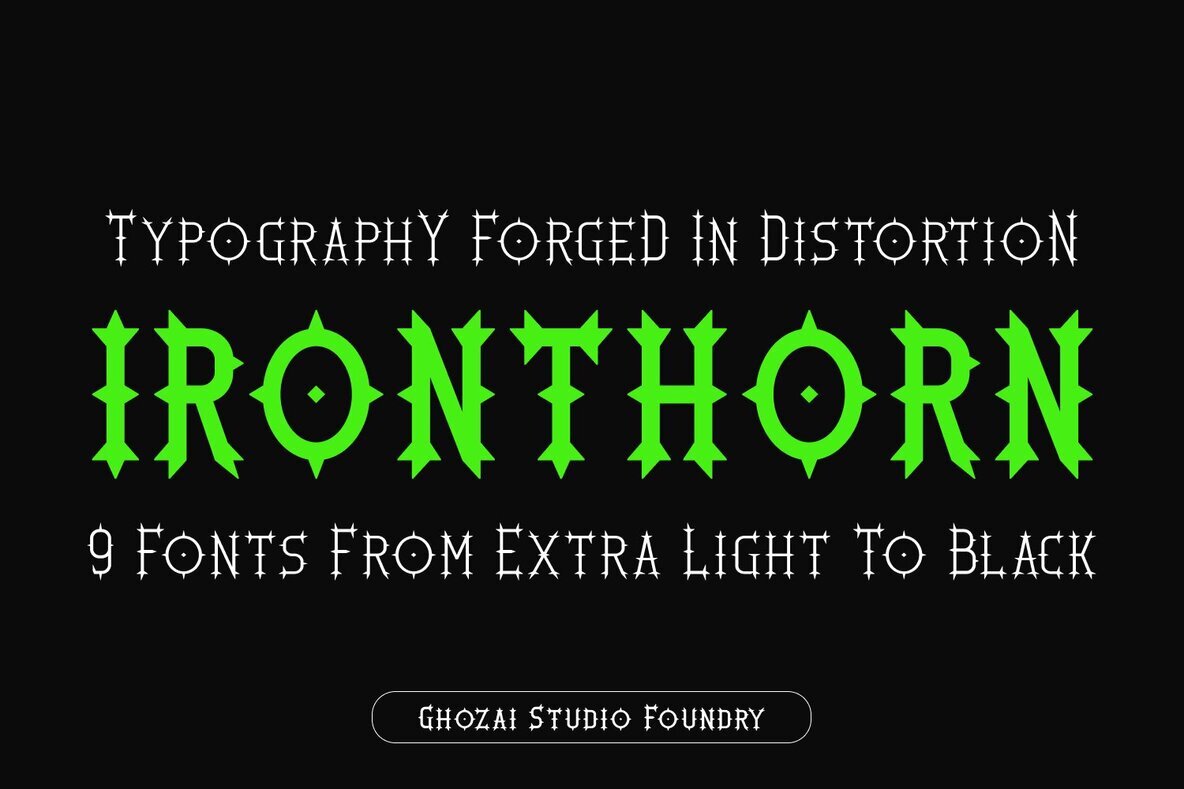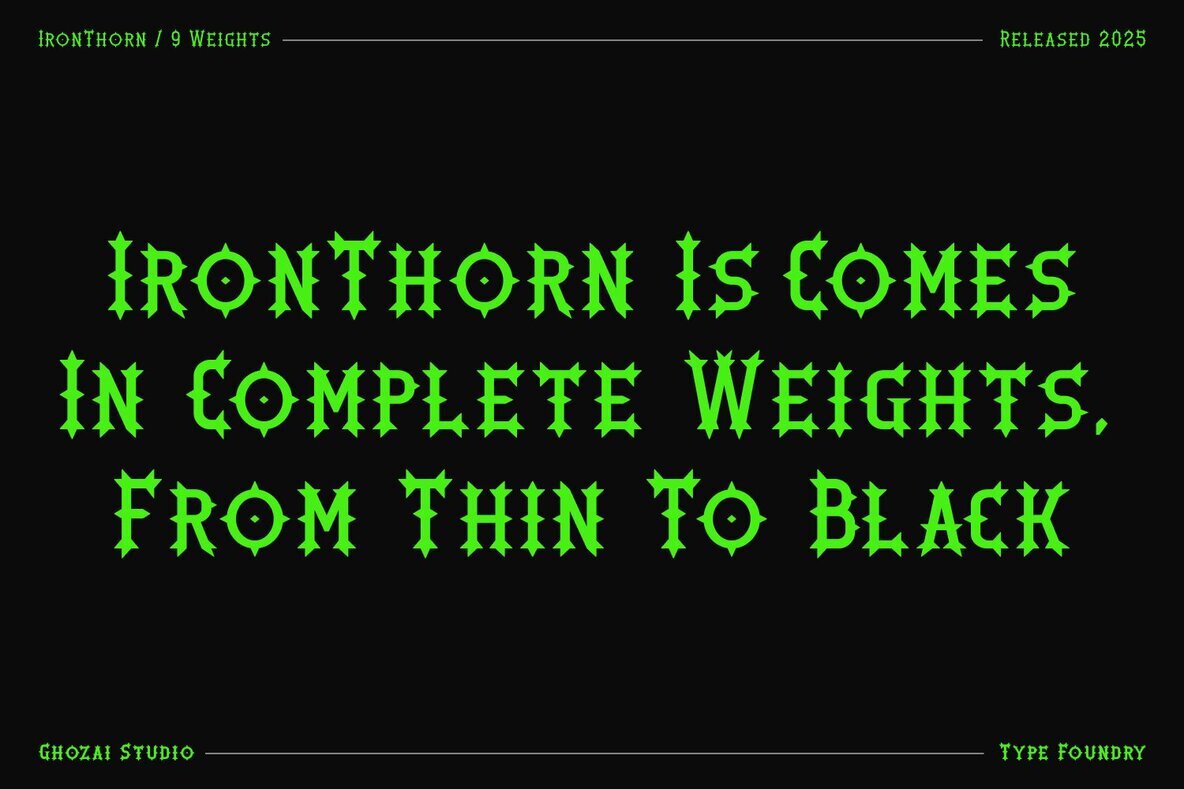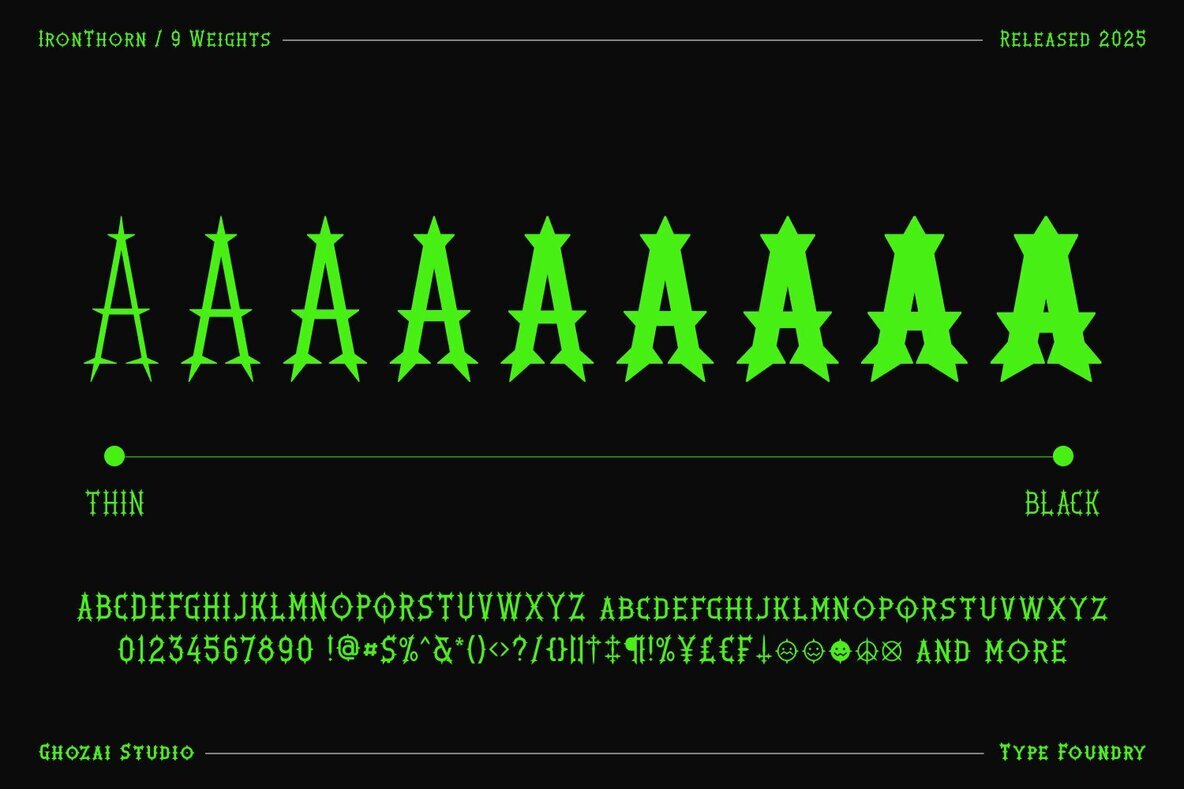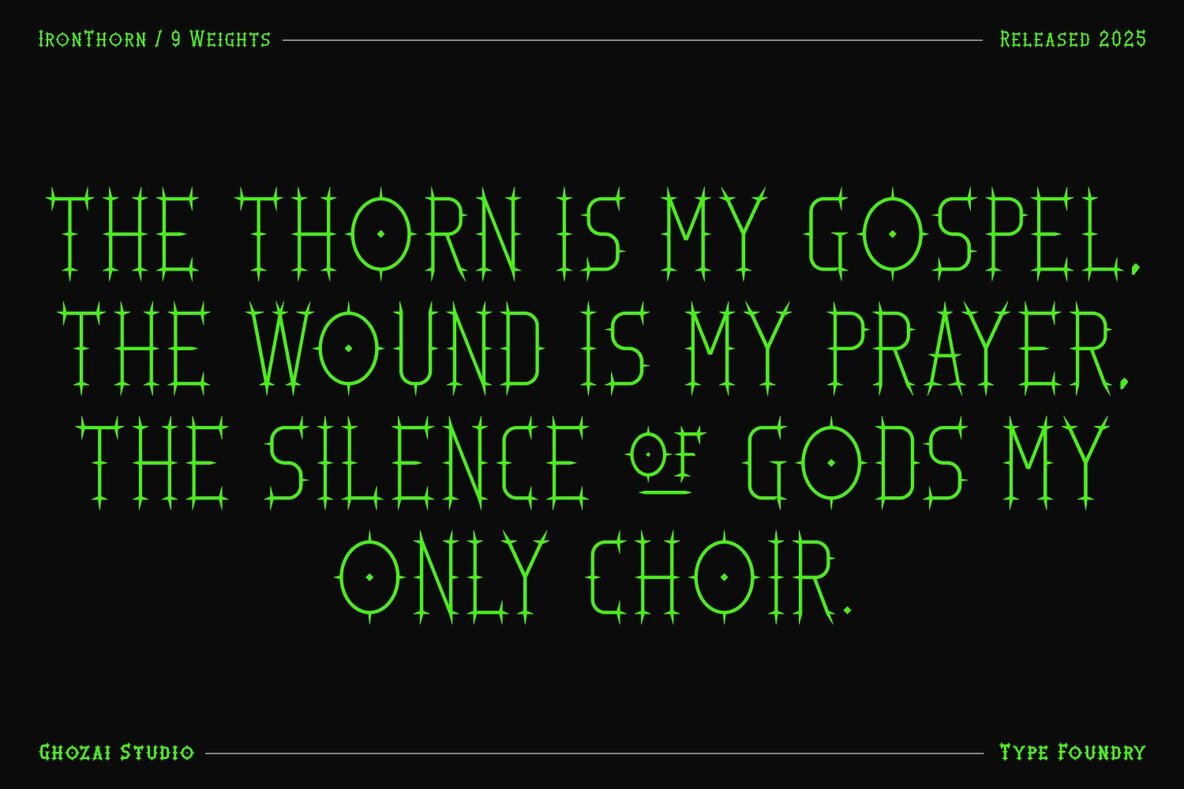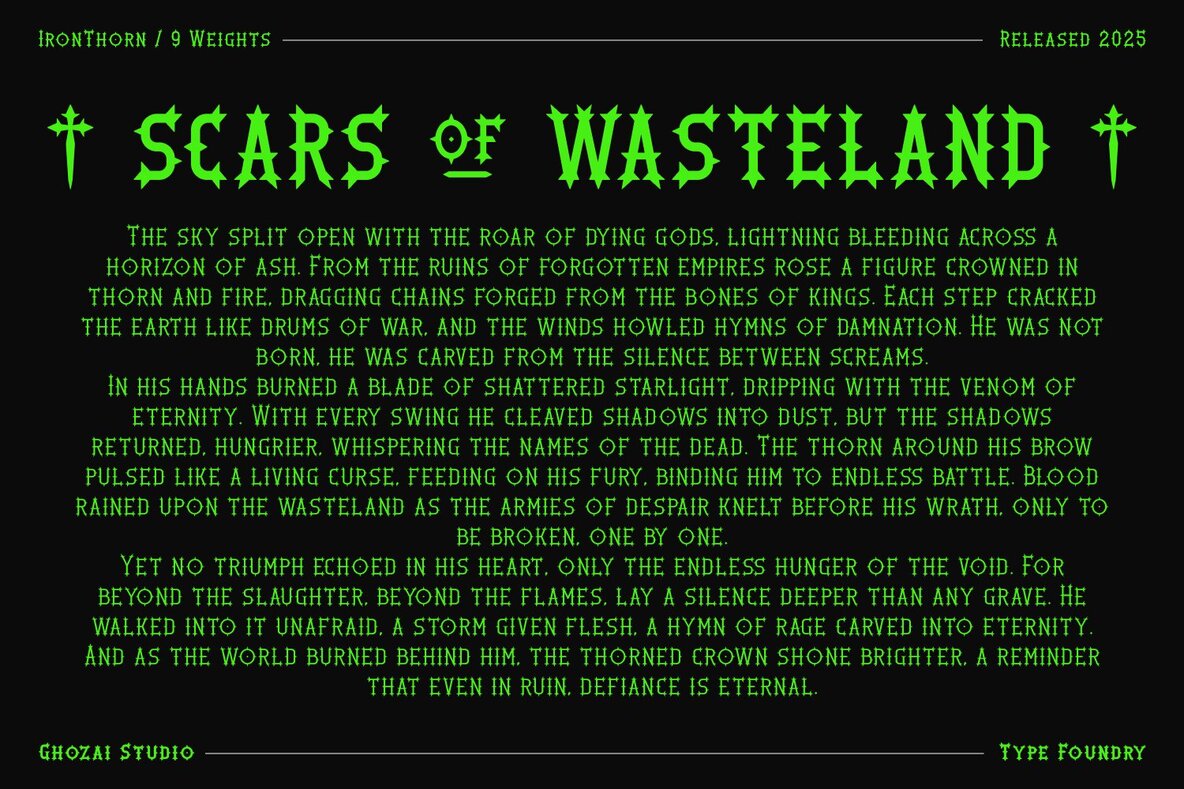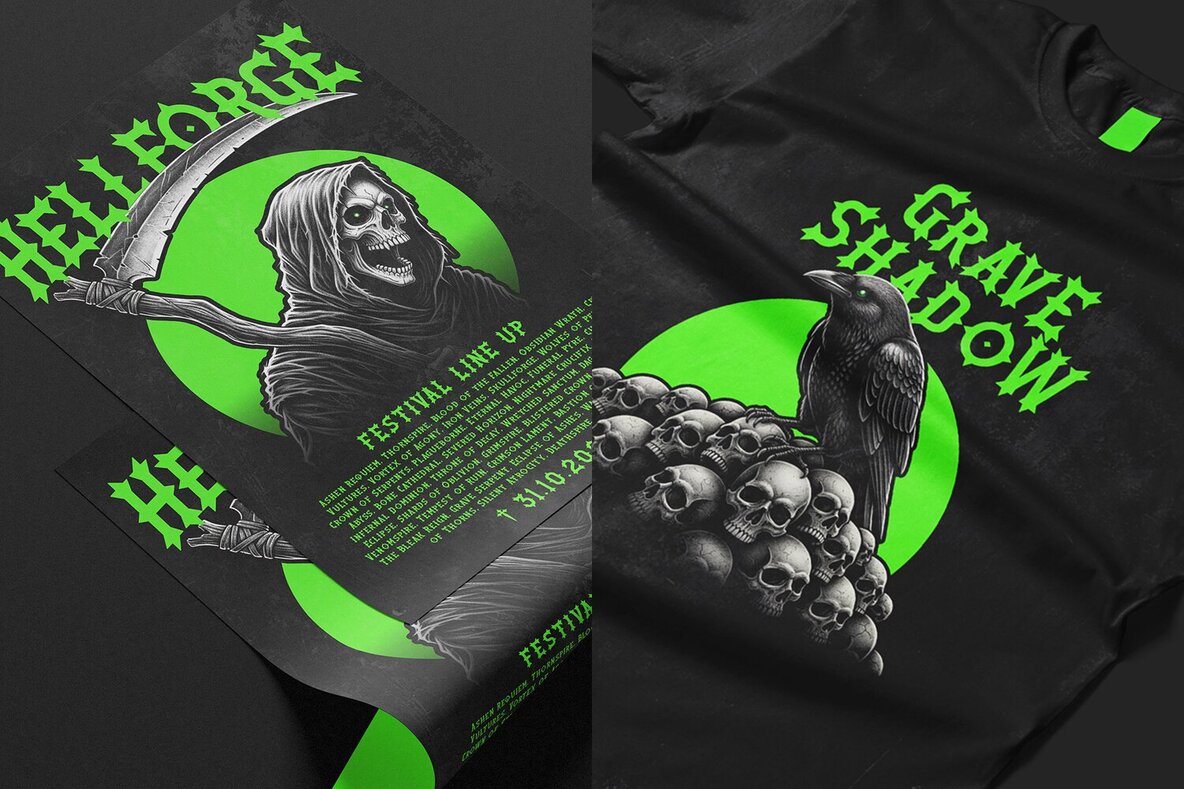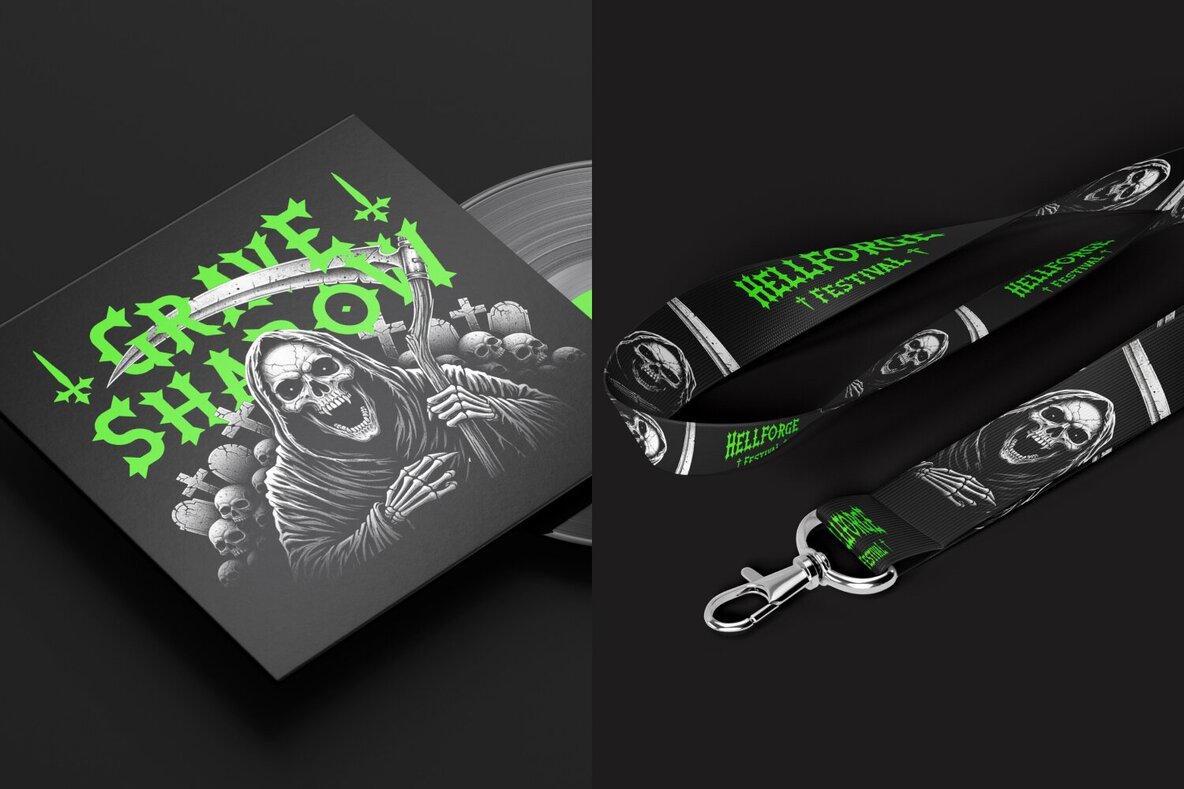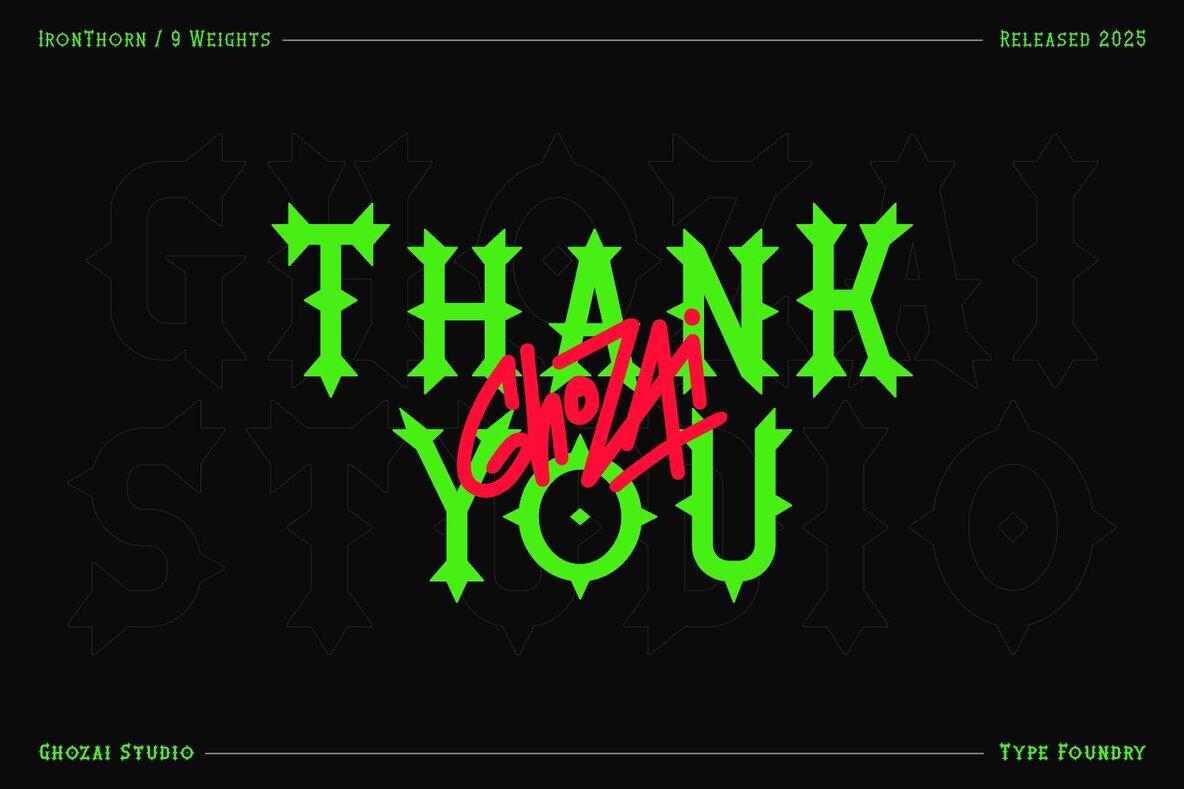
Ironthorn Font
Ironthorn captures the essence of raw power and vibrant energy. This dynamic serif font, inspired by sharp thorns and pointed needles, blends rebellious spirit with clear readability. With an impressive range of 9 weights from Thin to Black, Ironthorn offers extensive multilingual support that makes it a versatile choice for high-stakes projects. Ideal for music festival branding, band merchandise, and attention-grabbing headlines, Ironthorn lends a strong visual punch to any design. This unique typeface ensures your work shines in genres like rock, metal, and alternative music, thanks to its bold aesthetic. Whether crafting logos, posters, or apparel designs, Ironthorn's striking clarity and style make it perfect for signage and display typography that need to leave a lasting impression.Ironthorn: The Bold Metal Font Family